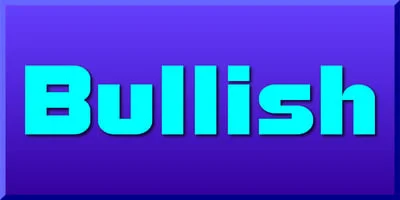
Bullish Font
Bullish Font excels in financial sector branding, investment firm logos, stock market presentations, trading platform interfaces, cryptocurrency campaigns, business conference materials, economic report designs, financial news graphics, wealth management communications, and aggressive marketing strategies. Its powerful character makes it perfect for projects requiring confidence, strength, and market-dominating visual presence.
What makes Bullish Font exciting is its commanding representation of financial power and market confidence that perfectly captures the aggressive energy of successful trading and investment strategies. The font features bold, assertive letterforms with strong structural elements that convey determination and market dominance while maintaining professional readability. Its bullish character transforms financial communications into powerful statements that project success and inspire investor confidence.
The Bullish Font family includes Regular, Bold, Heavy, Aggressive, Market, Power, and Trading variations. Each style maintains the font's financial essence while offering different levels of market intensity and investment weight for creating dynamic finance-oriented graphics. The comprehensive character set includes financial symbols, market notations, trading icons, and economic glyphs essential for authentic financial and investment typography projects.
Financial professionals and investment firms consistently choose Bullish Font for projects demanding authoritative market typography solutions. The font's aggressive character establishes immediate market credibility while ensuring powerful communication across financial marketing channels. Its versatility makes it suitable for both conservative financial documentation and bold investment campaigns that need to project strength and market leadership.
Whether you're developing financial brand identities, creating investment marketing materials, or designing trading platform communications, Bullish Font provides the perfect combination of market authority and professional functionality. The font's strategically engineered letterforms ensure consistent performance across various financial applications while projecting the confidence and aggression essential for successful market communications.
The market heritage of Bullish Font makes it exceptional for establishing credible presence in competitive financial sectors. Its bullish precision and aggressive appeal work seamlessly across traditional financial documentation and cutting-edge fintech platforms. The font maintains its market character across various trading technologies and professional financial applications.
Dominate markets with Bullish Font and discover how aggressive financial typography can enhance your investment projects' authority and market impact. This remarkable typeface combines trading floor energy with contemporary functionality, making it indispensable for financial professionals seeking to project confidence and command respect in competitive market environments.